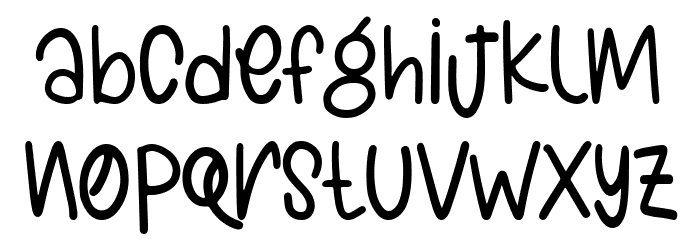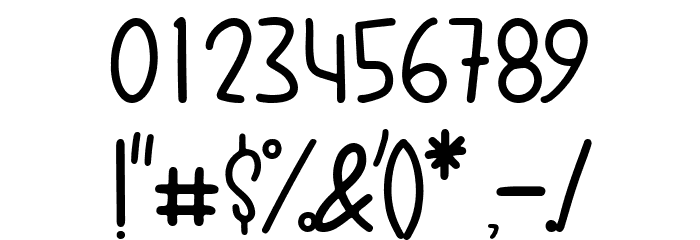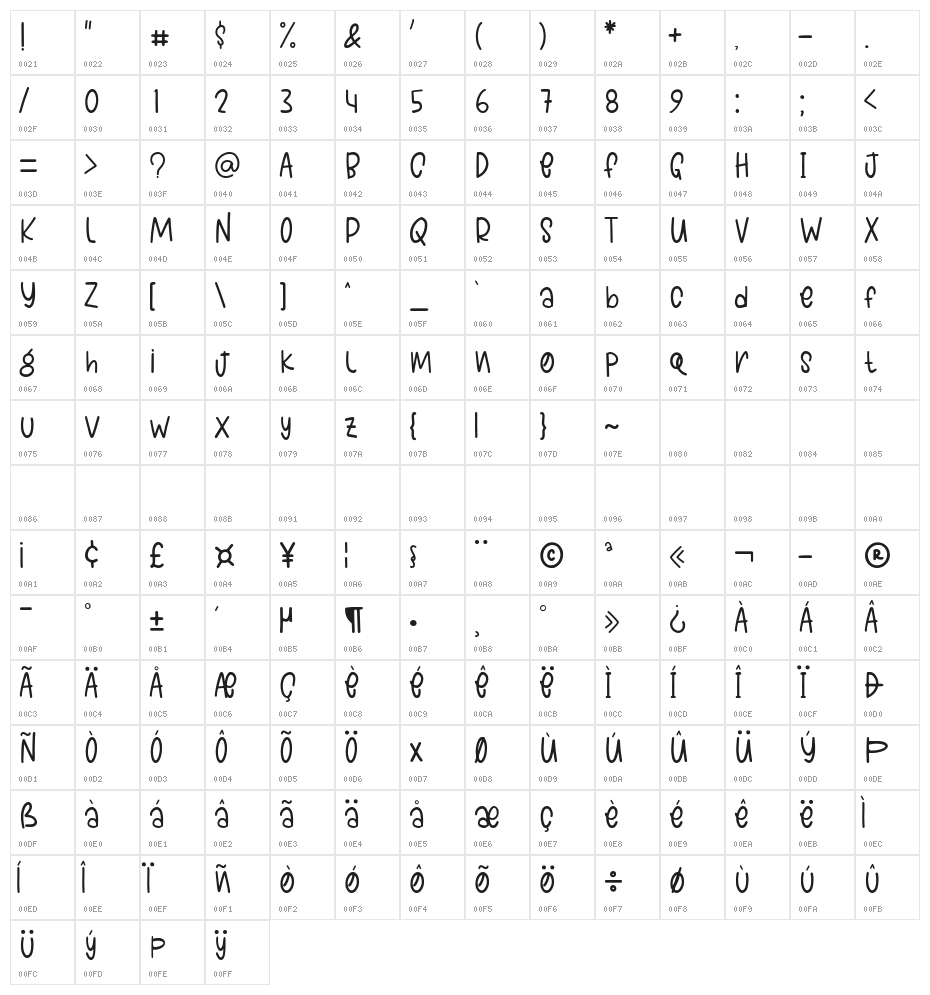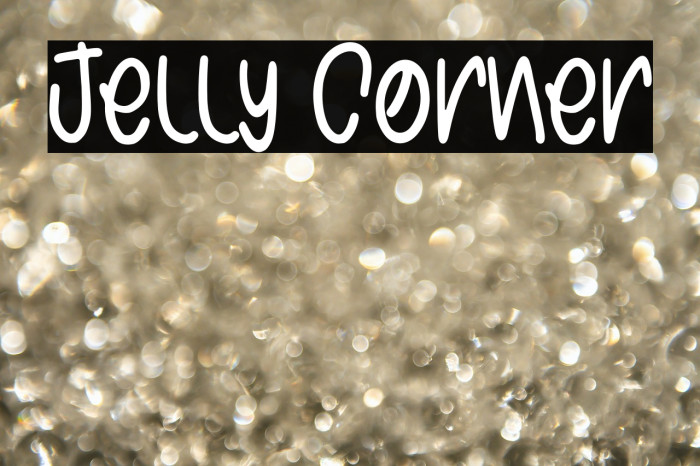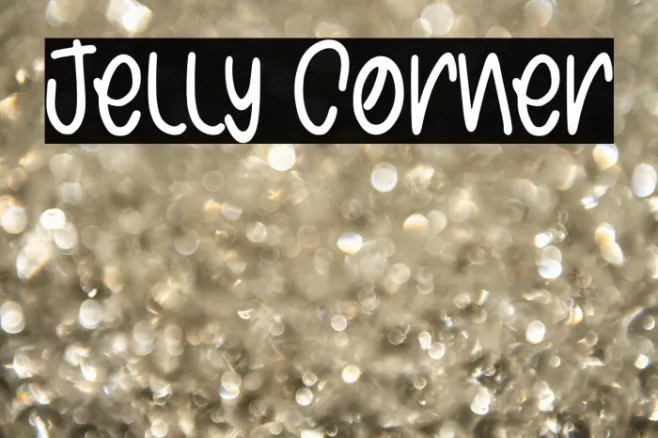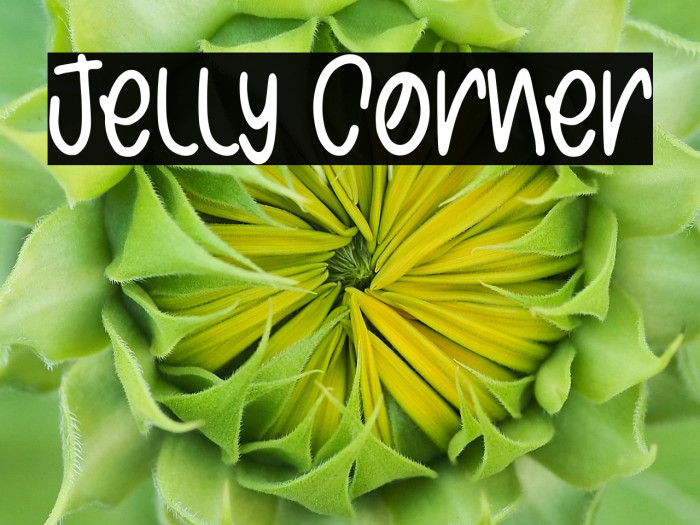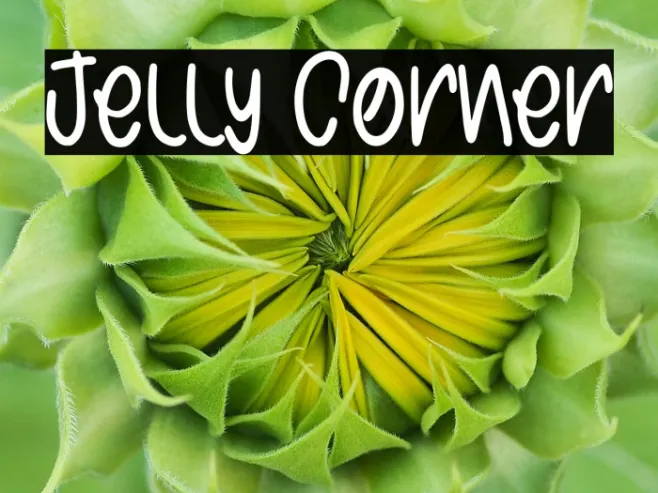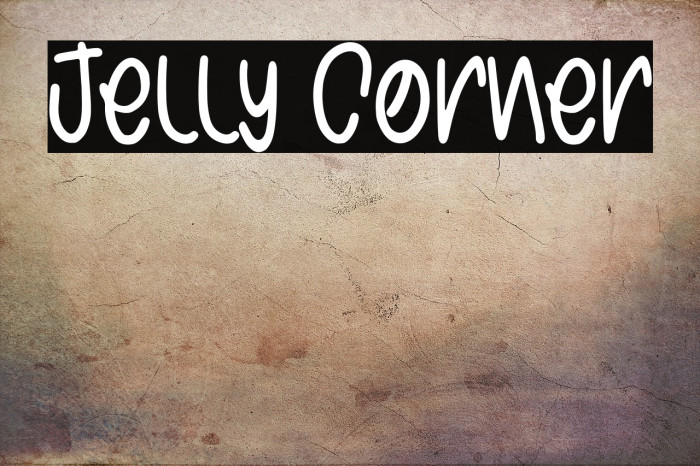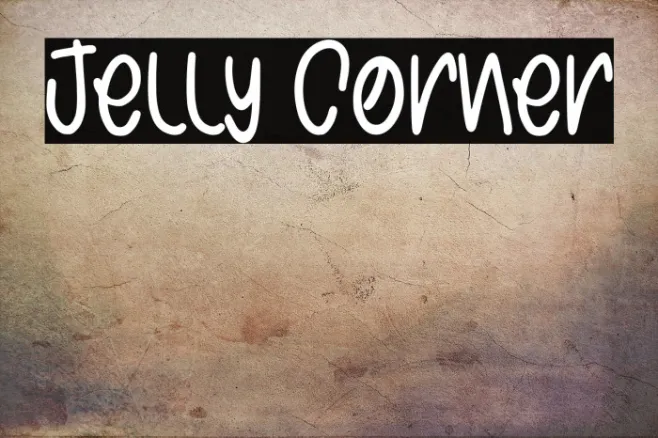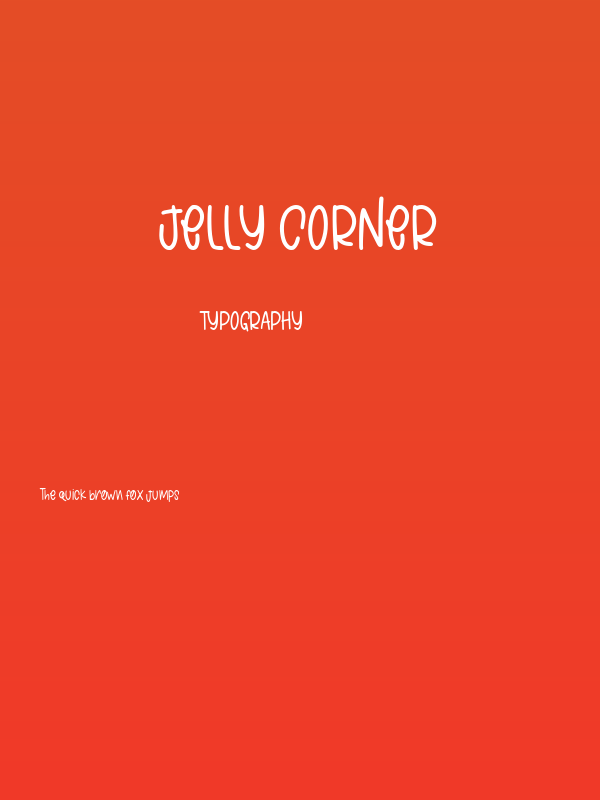
Jelly Corner Font
This playful and whimsical font features rounded, bubbly letterforms that convey a sense of fun and creativity. The characters are slightly irregular, adding a hand-drawn, casual feel. The uppercase and lowercase letters maintain a consistent style, with smooth curves and a friendly appearance. Numbers and special characters are designed to match the overall playful aesthetic, making this font ideal for projects that require a lighthearted and approachable tone. The font's unique style is perfect for children's books, playful branding, or any design that aims to evoke joy and creativity.
A playful, bubbly font with rounded, hand-drawn letterforms.
- Proposed Projects: Ideal for children's books, playful branding, greeting cards, and creative posters.
- Overall Style: Playful